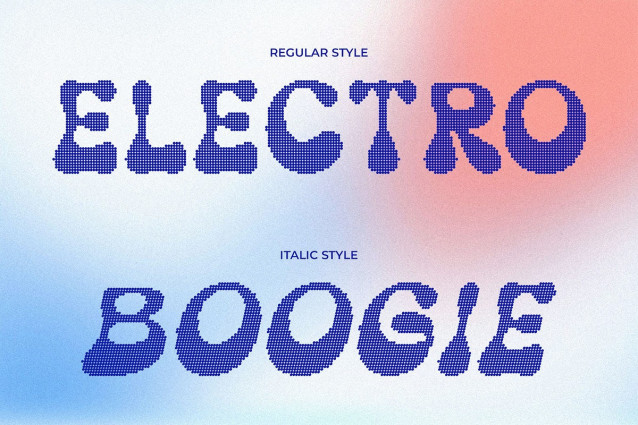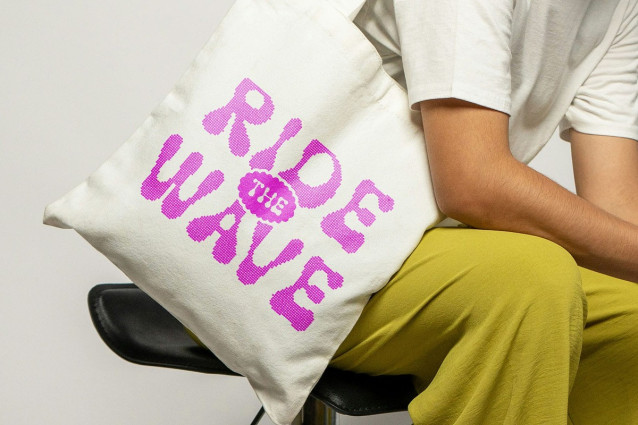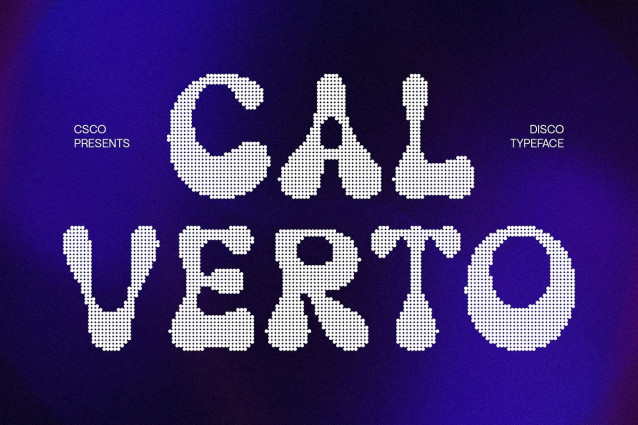
Calverto Disco Font
Calverto Disco Font draws inspiration from the stylish, decorative curves of the 1970s. Its retro, groovy letterforms create a playful and energetic vibe, making every design feel lively and full of character. The smooth curves and bold style give it a timeless, vintage appeal that instantly attracts attention.
Disco Flair for Glamorous Movement A sparkling disco effect adds rhythm, glamour, and dynamic energy to each character of this display font. This subtle yet striking detail creates a sense of motion, making your text appear alive and celebratory. The disco sparkle enhances the retro aesthetic, giving designs a fun, glamorous touch.
Playful, Funky, and Energetic By combining bold decorative shapes with disco-inspired highlights, Calverto Disco brings joy, energy, and a funky personality to any project. Its playful style makes it perfect for designs that want to feel vibrant, dynamic, and entertaining, while still maintaining a classic retro charm.
Perfect for Vintage and Creative Projects Calverto Disco is ideal for posters, branding, headlines, music designs, party invitations, and other creative applications. Its combination of retro decorative style and disco flair ensures your projects stand out with maximum visual impact. Beyond display use, Calverto Disco adapts to various creative applications, from social media graphics to merchandise and editorial design.